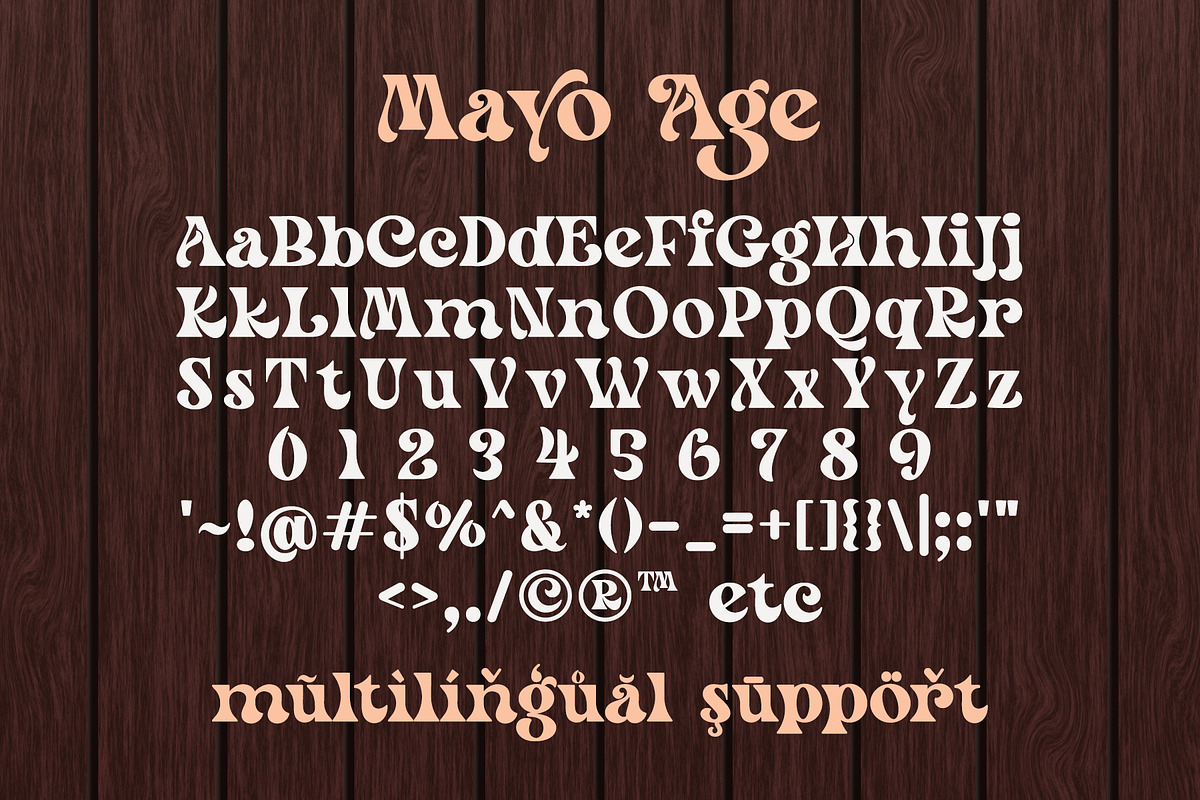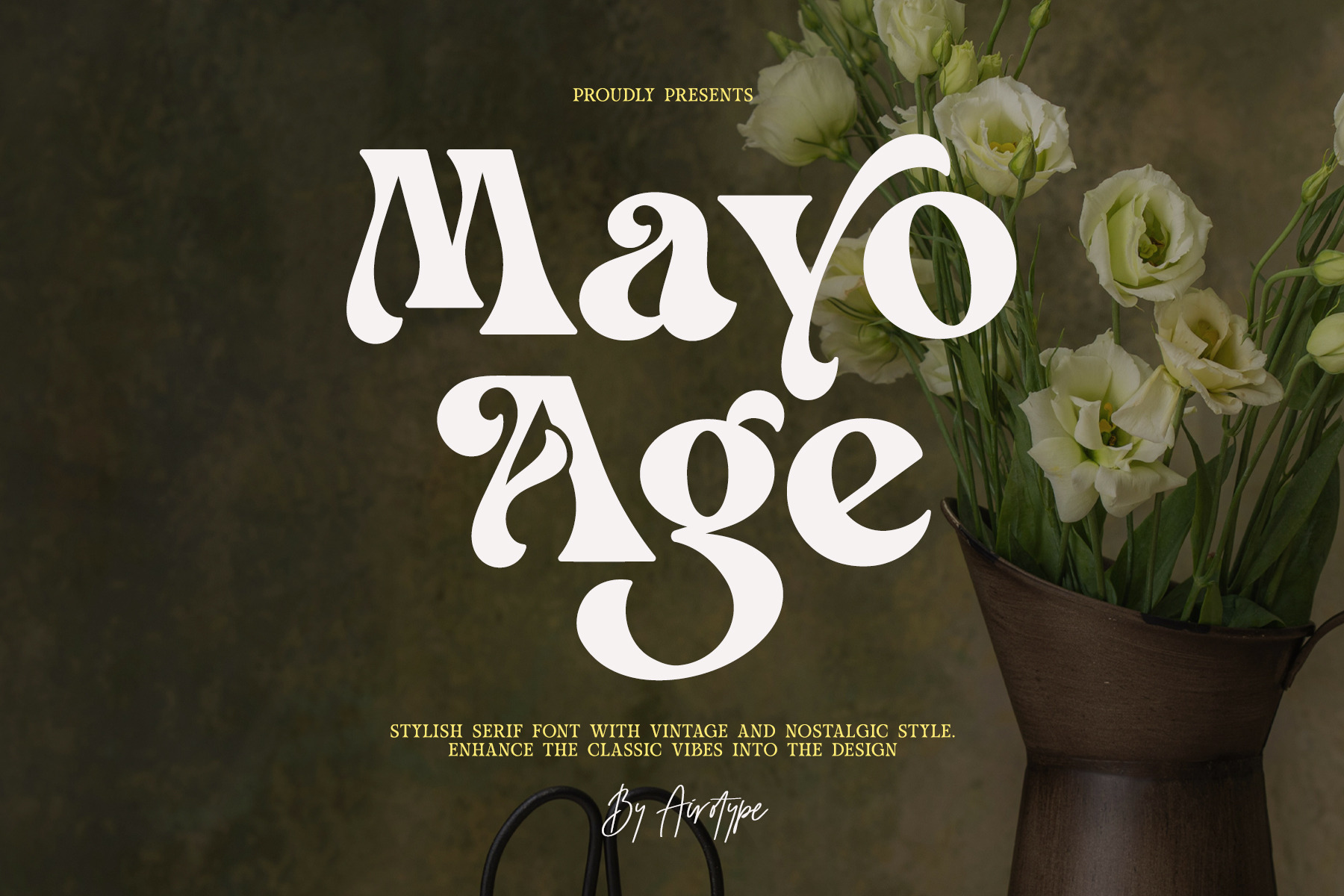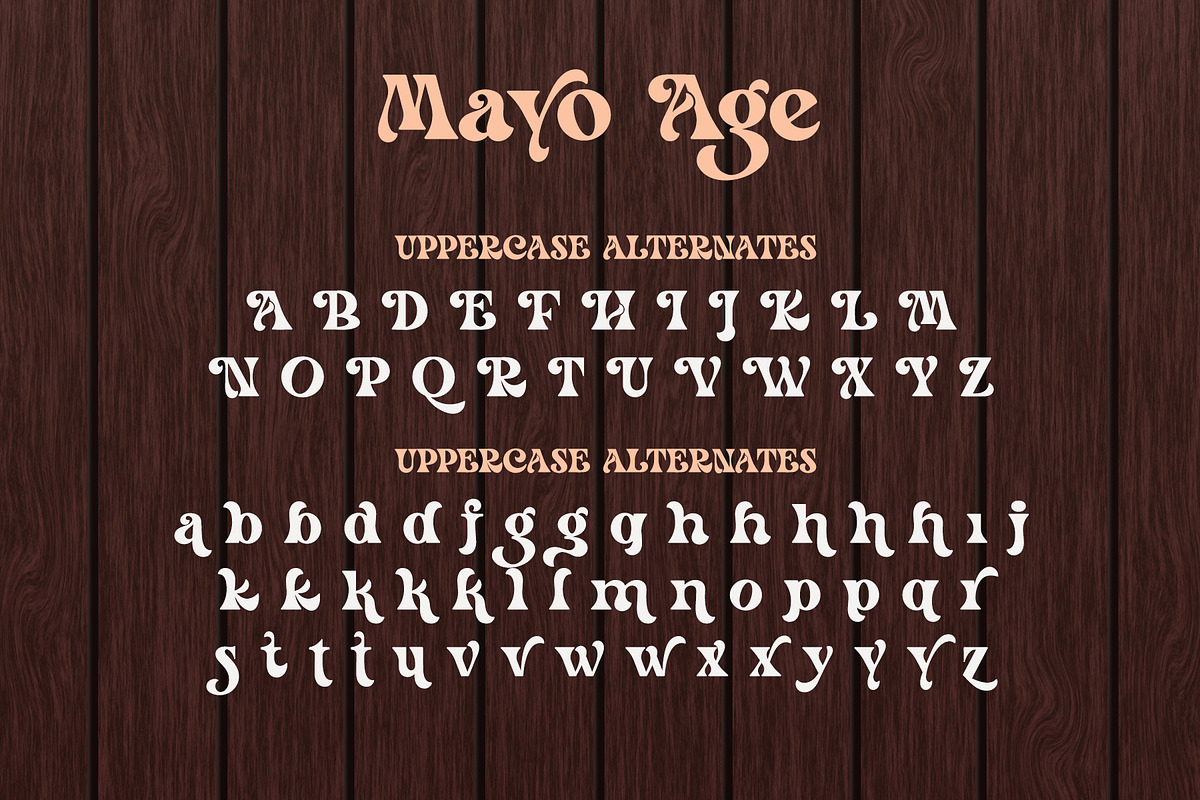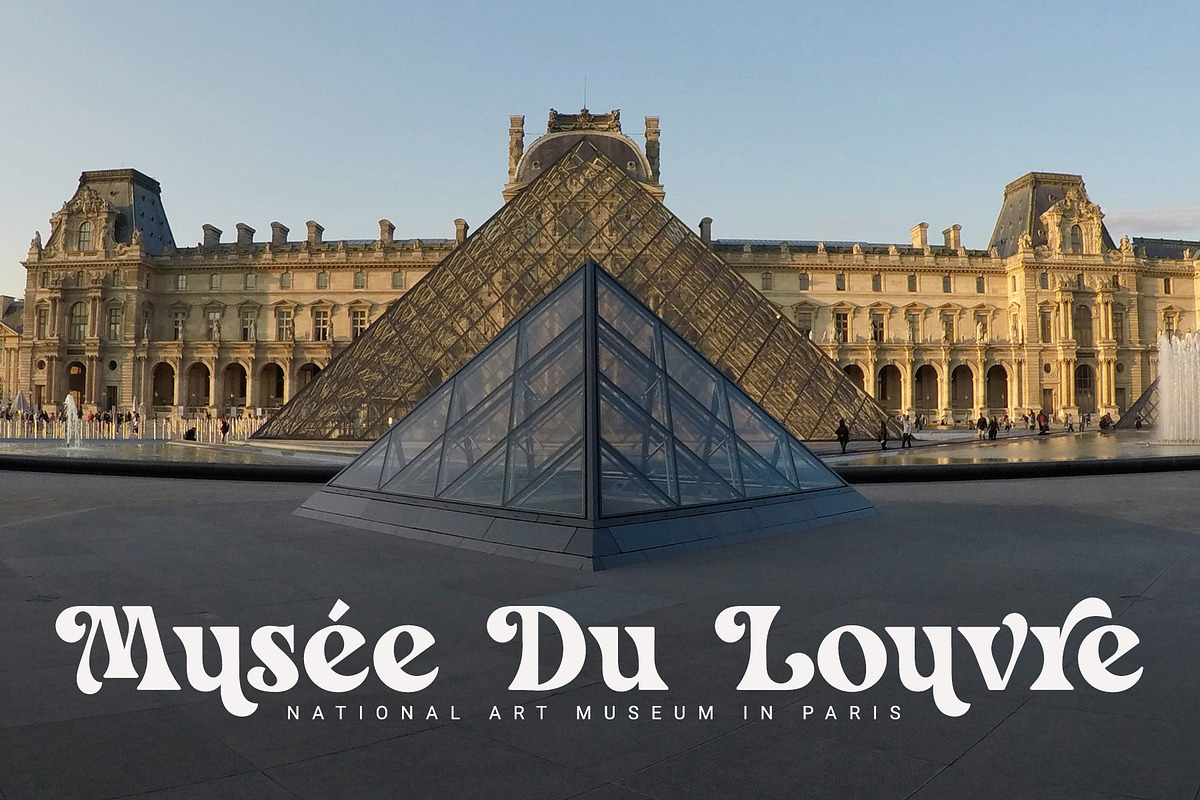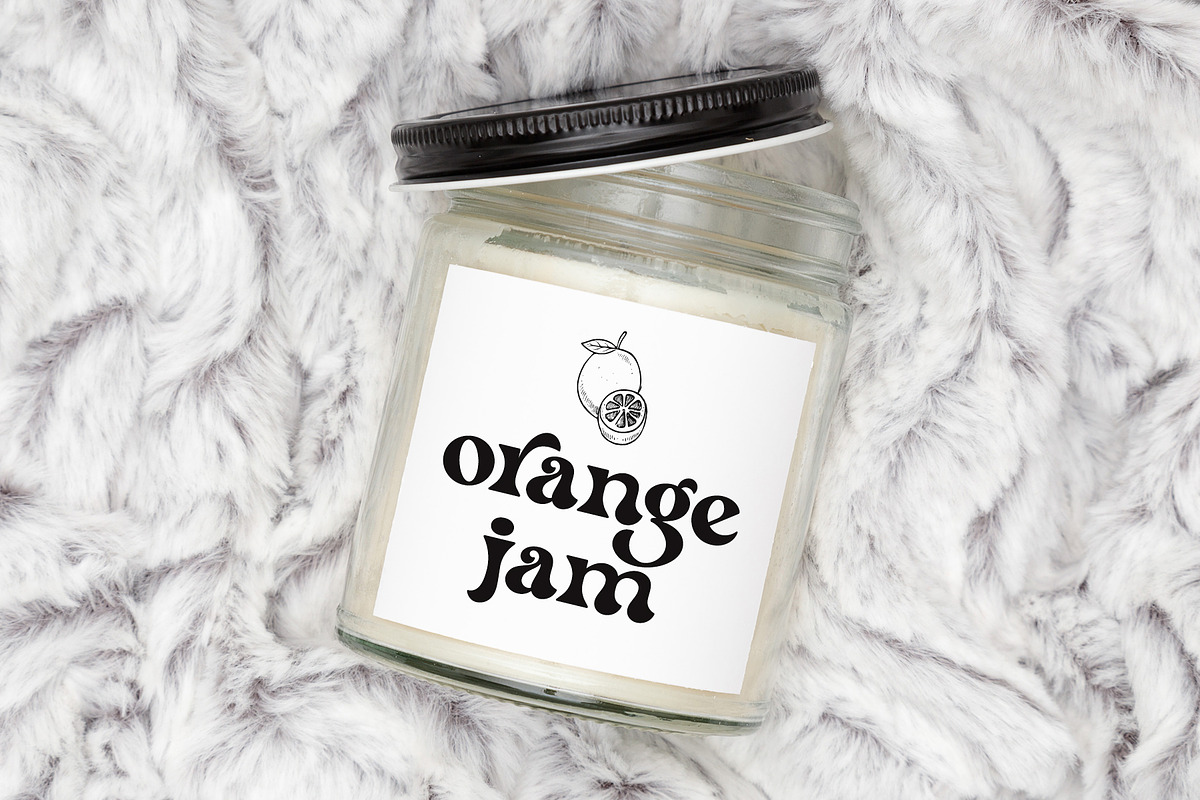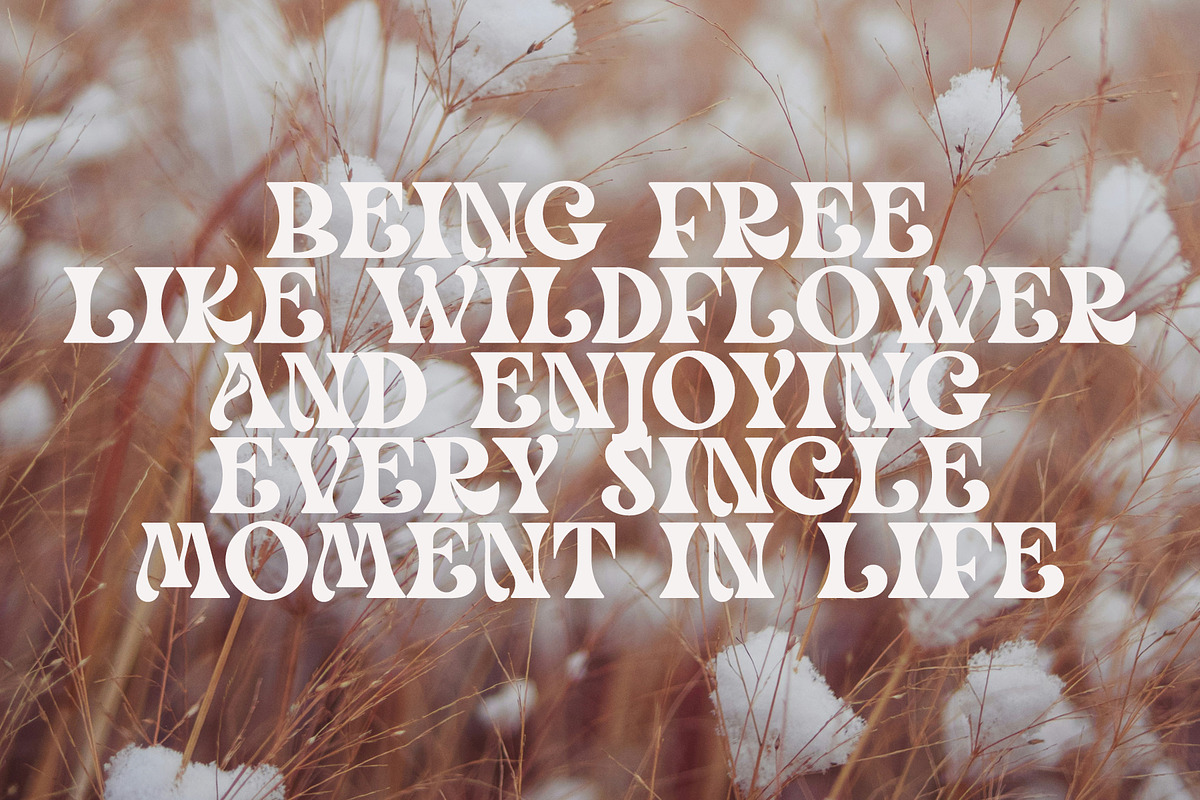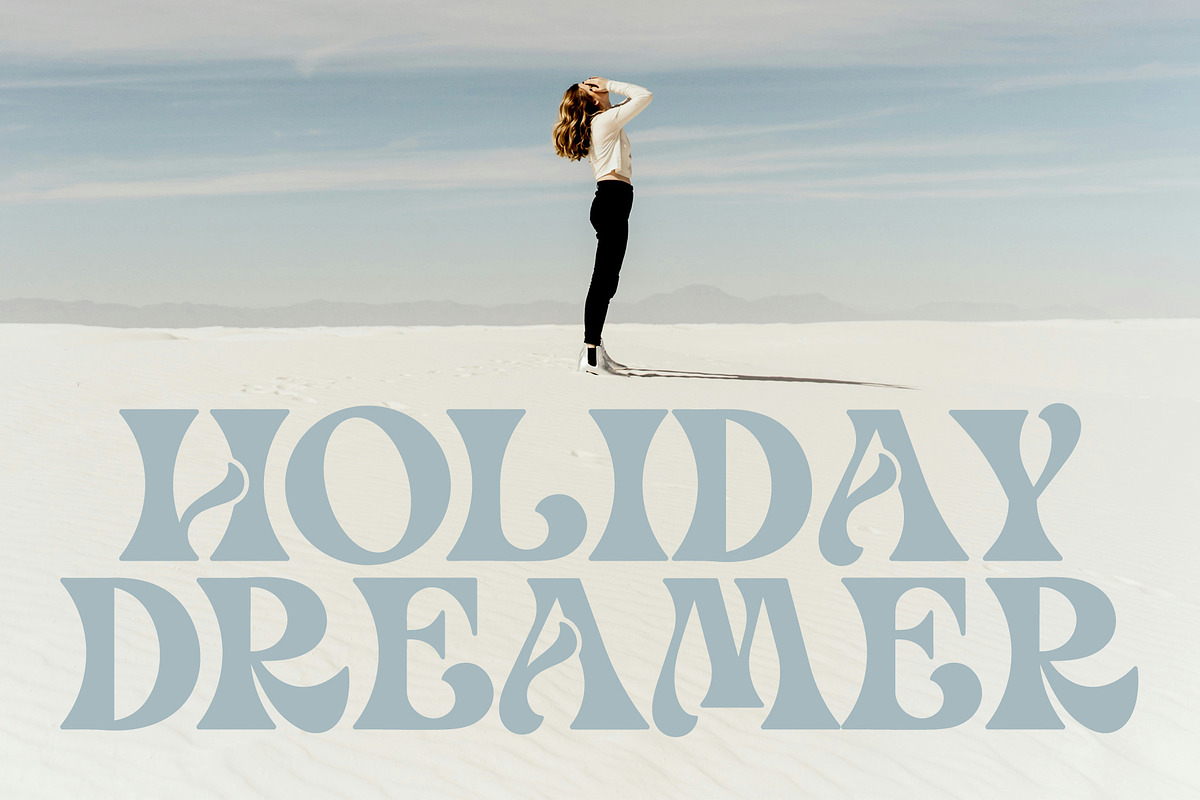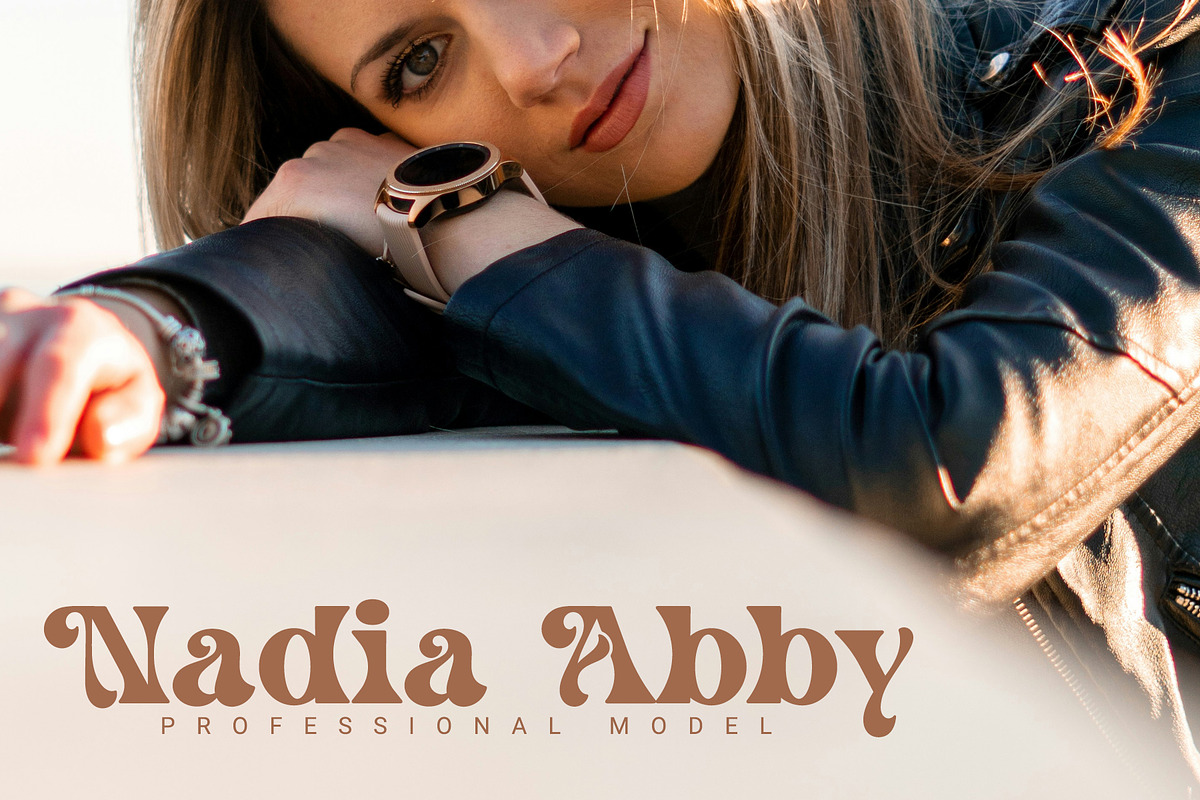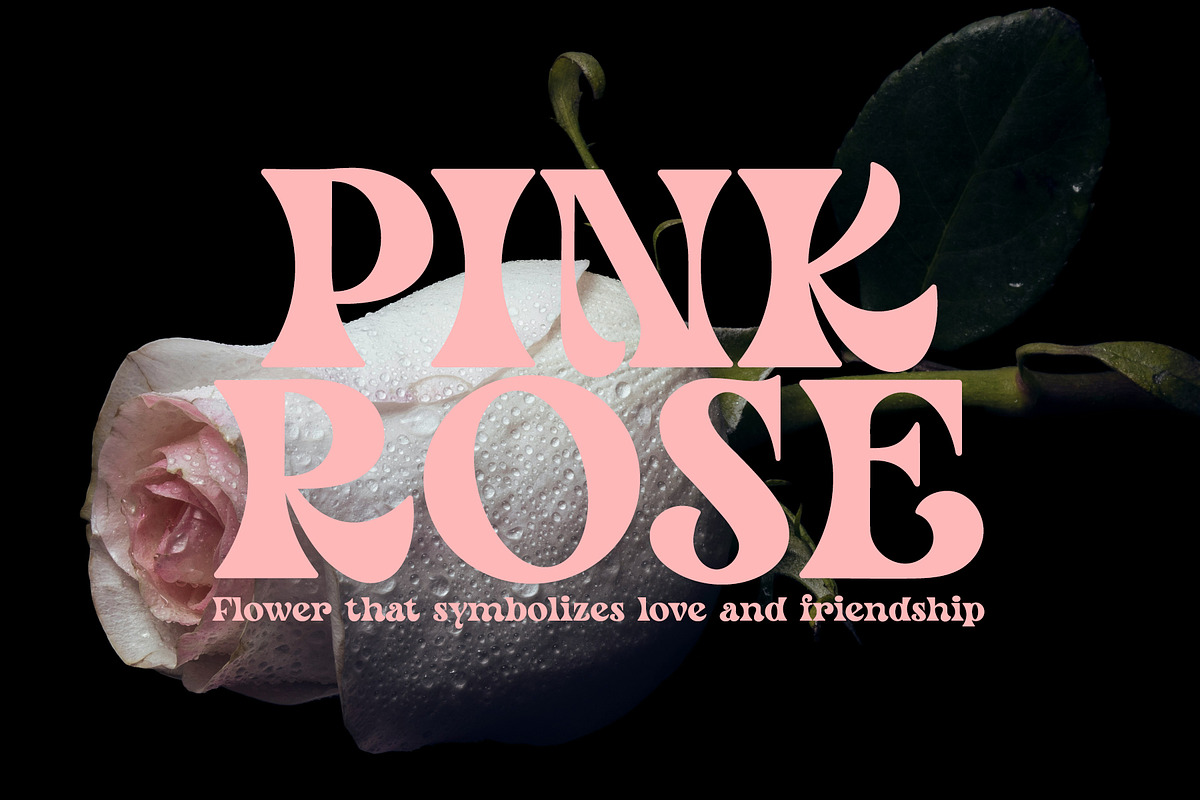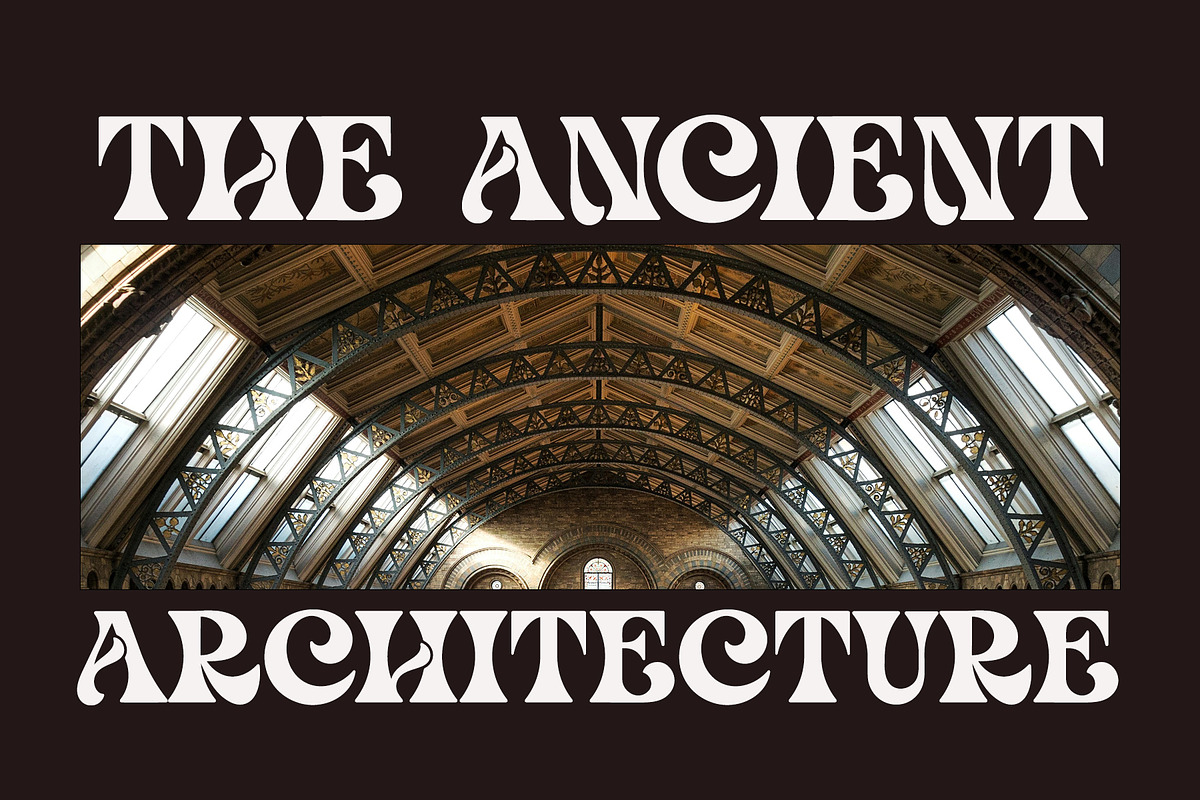
Mayo Age - Modern Vintage Serif Font
Mayo Age is modern and stylish serif font. It is stylish, elegant, and classy. This font enhance the design with its charm and elegance.
This font is stylish font for any projects with modern vintage vibes, such as logo, crafting, wedding invitation, poster, branding, photography, sticker, sublimation, quotes, and many others.
- Uppercase and Lowercase (include PUA-Encoded extra glyphs)
- Most Multilingual Accent